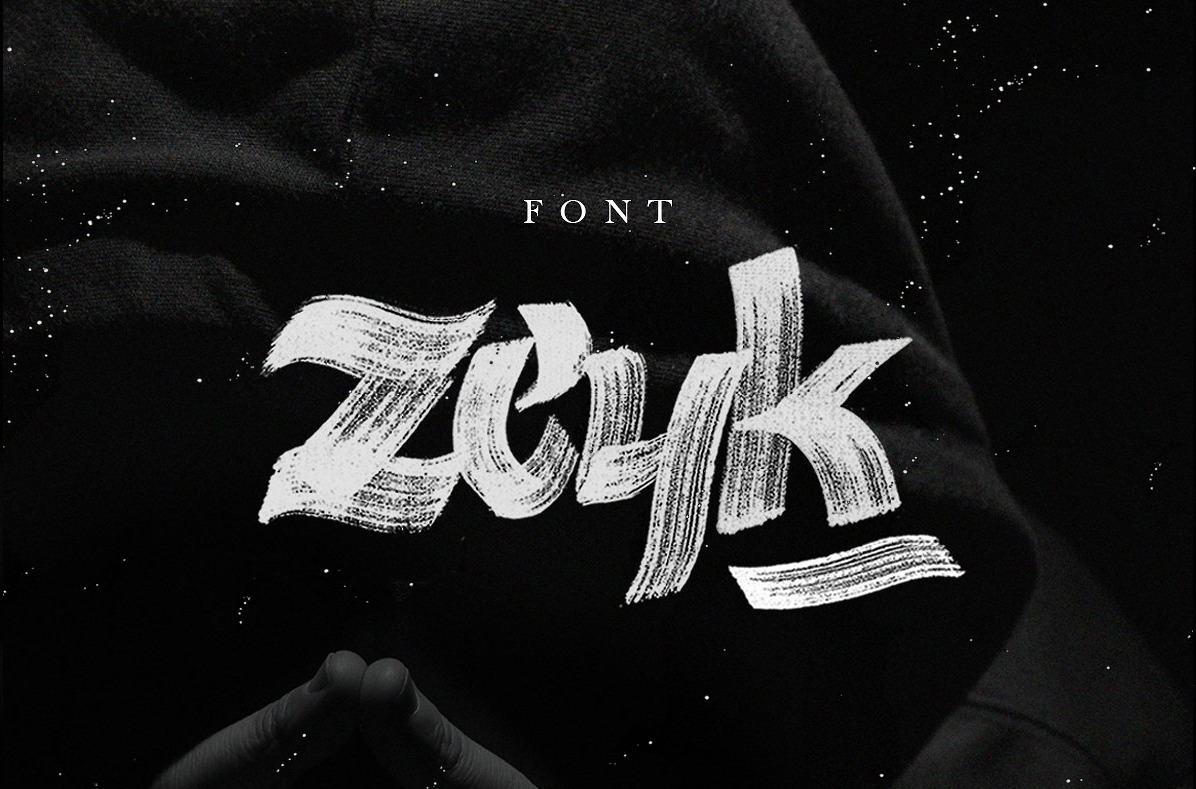
Zeyk Brush Font & Typeface
ZEYK is a Highly useful, and incredibly versatile brush typeface and font bundle. High quality brush texture.
- Black and White font